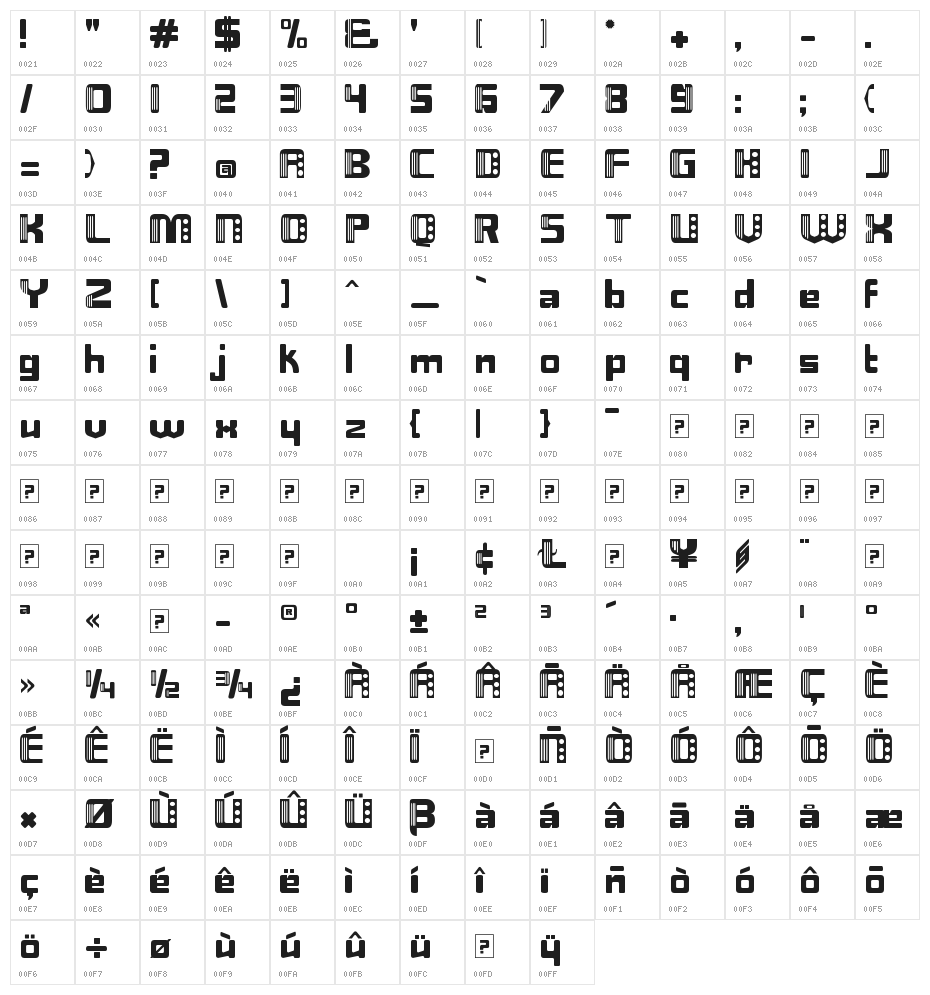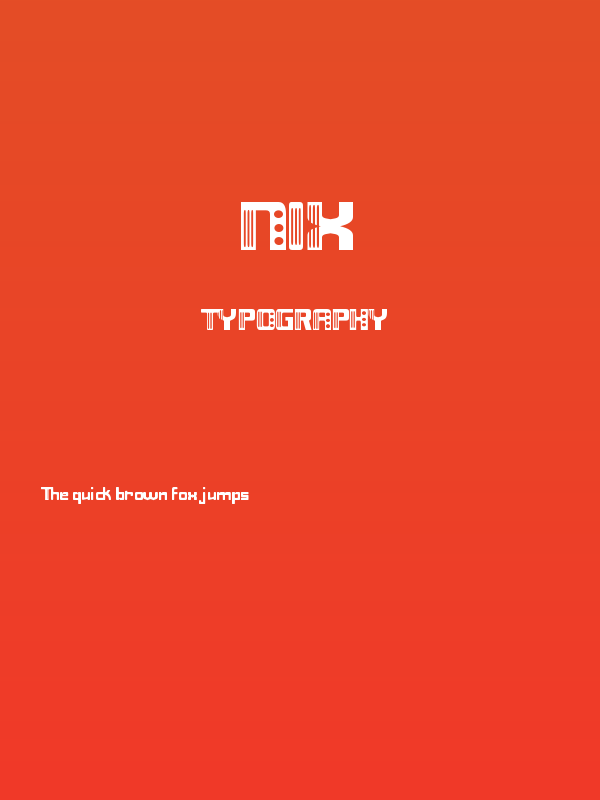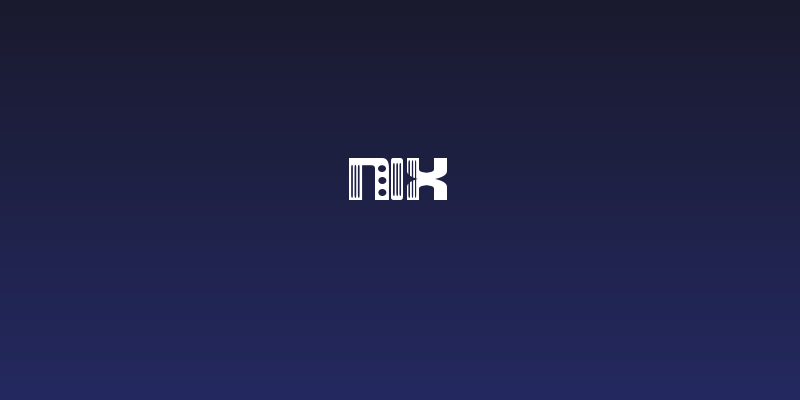
Nix Font
Nix Description
This font features a bold, geometric design with a distinct futuristic flair. The uppercase letters are characterized by a combination of solid and striped patterns, creating a dynamic visual effect. The lowercase letters maintain a consistent boldness with rounded edges, offering a softer contrast to the uppercase. Numbers and special characters follow the same design principles, ensuring uniformity across all glyphs. The font's unique style makes it stand out, ideal for projects that require a modern and eye-catching typeface.
| Overall Style | Futuristic, Modern |
| Proposed Projects | Ideal for sci-fi themed designs, technology branding, posters, and modern digital interfaces. |